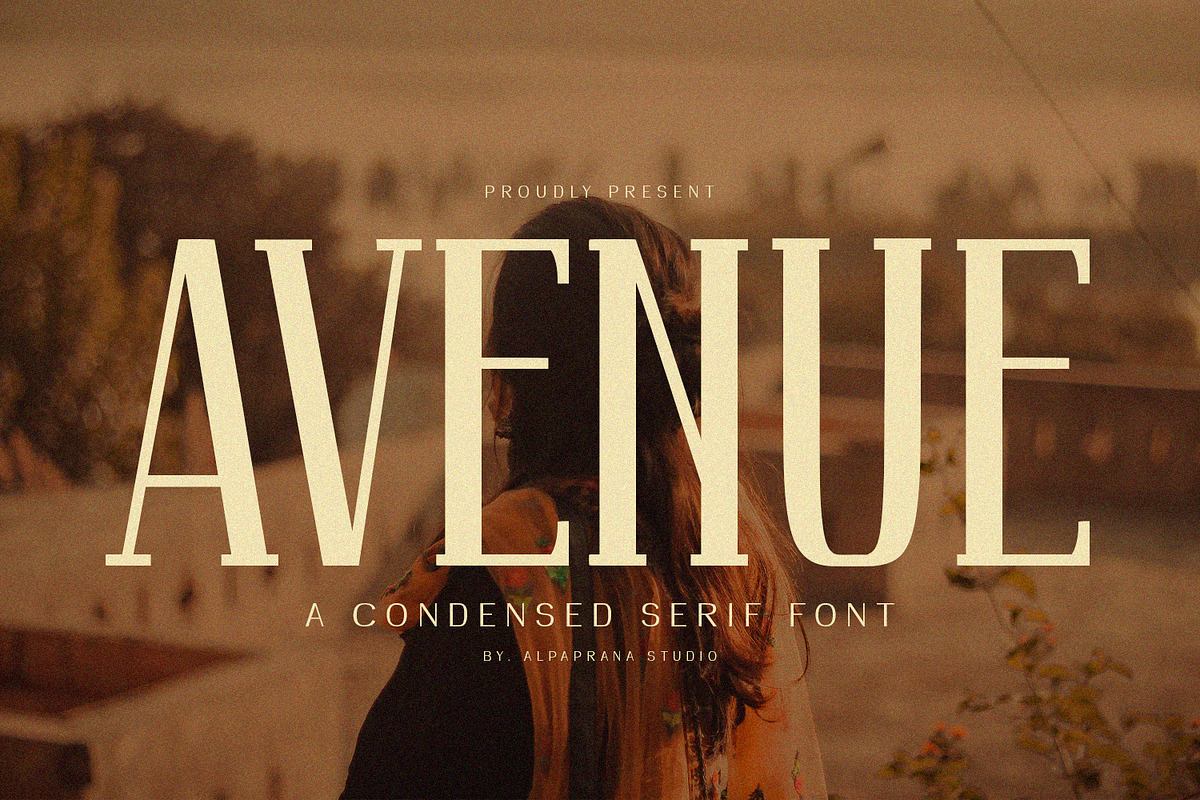
Avenue – Serif Font Free Download is a modern and refined serif typeface that blends clean lines with classic elegance. With its high-contrast strokes, stylish curves, and timeless structure, this font is perfect for editorial design, fashion branding, upscale packaging, logos, wedding stationery, and high-end web design.
Elegant yet versatile, Avenue – Serif Font Free Download works beautifully in both large headlines and smaller body text, making it an excellent choice for designs that require sophistication with a contemporary edge.